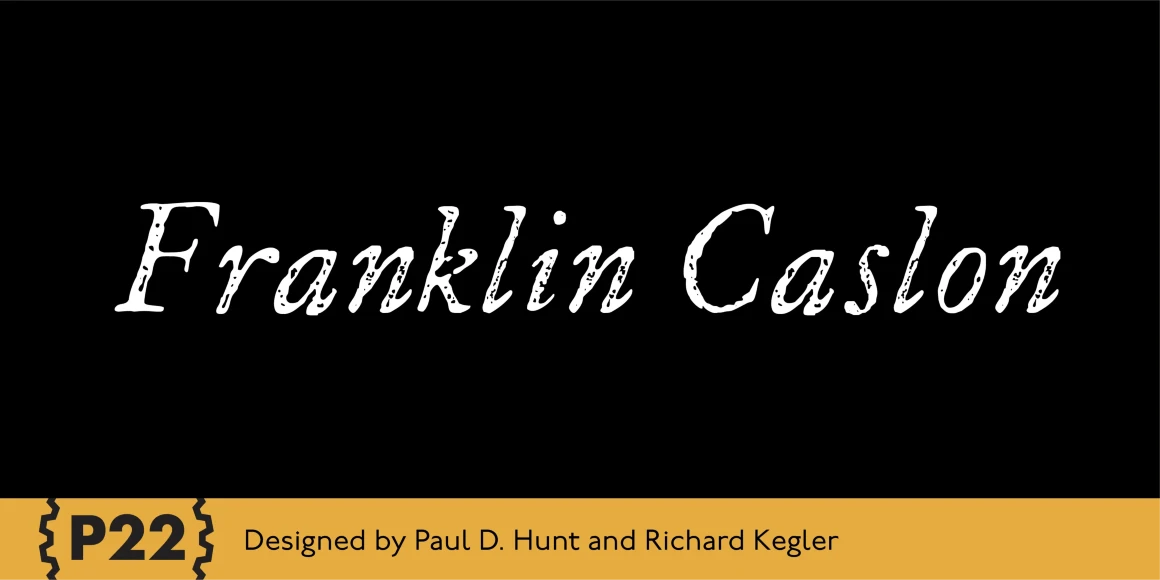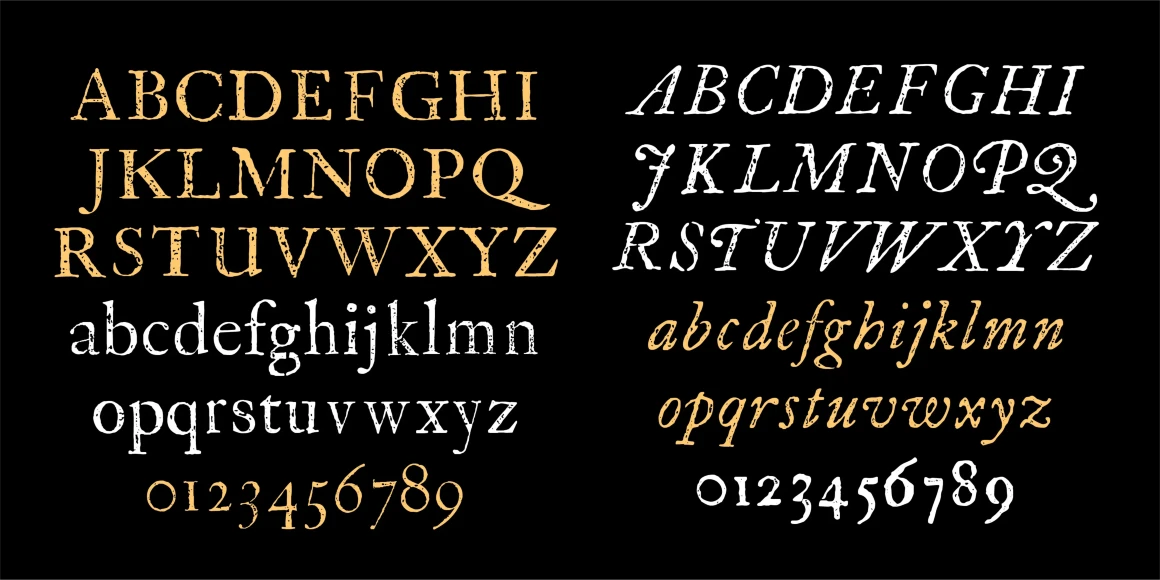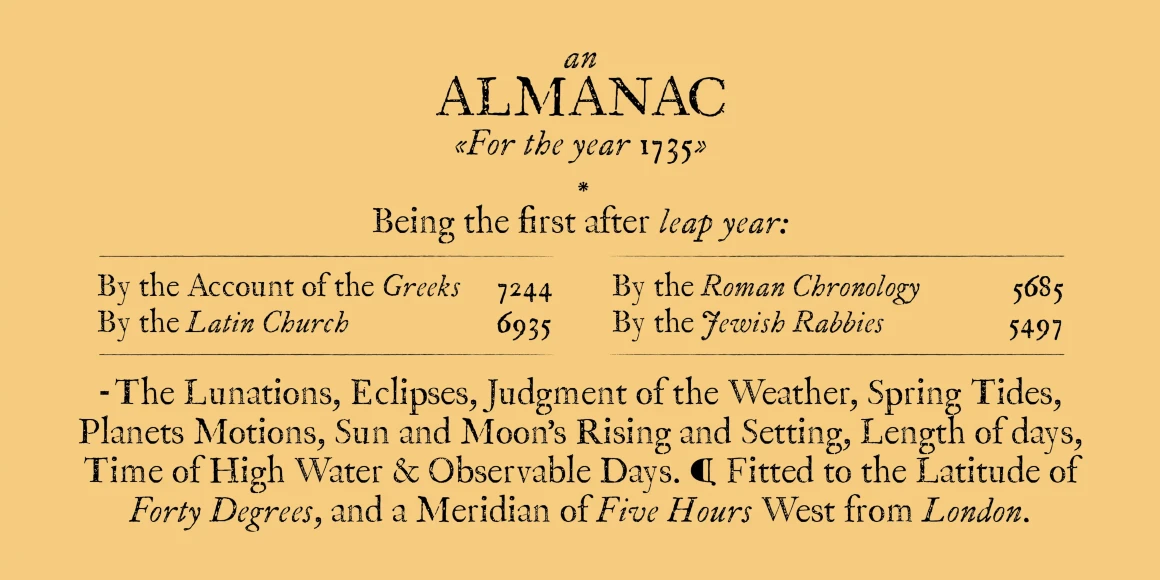
Franklin Caslon
This font set was created in collaboration with the Philadelphia Museum of Art to coincide with the Benjamin Franklin Tercentenary. This font set includes faithfully reproduced letterforms digitized directly from images of impressions made by Benjamin Franklin and his printing office circa 1750. The printing conditions of the time involved handmade paper with textured surfaces and handmade inks which were Script-applied for each impression. By digitizing the printed type in its real-life state, an authentic look of Franklin’s actual work is achieved and, ultimately, has a timeless appeal.
Designed by Richard Kegler & Paul D. Hunt